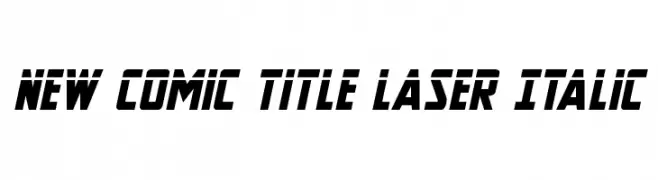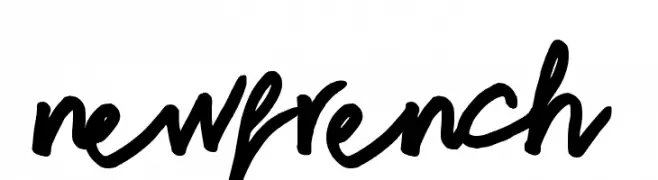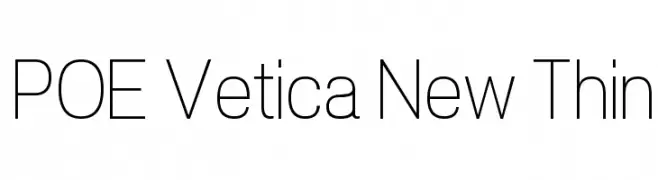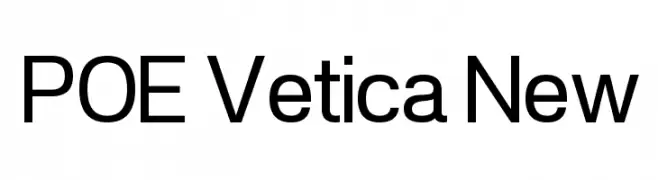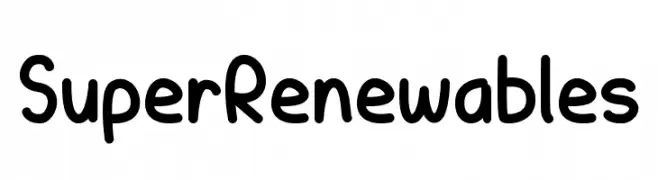
A bold, modern sans-serif font with clean lines and strong presence.
A thin, italicized font with a modern and elegant style.
A modern sans-serif font with geometric shapes and uniform strokes.
A modern, thin sans-serif font with clean lines and elegant simplicity.
A bold, playful font with rounded edges and a modern, whimsical style.
A bold, handwritten font with a casual and energetic style.
A playful, rounded font with a friendly and approachable style.
A bold, pixelated font with a retro digital aesthetic.
A pixelated, retro-style font with a digital display aesthetic.
A bold, italicized font with a futuristic and angular design.